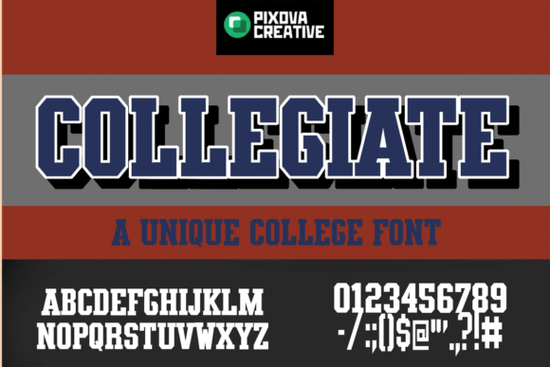
The Collegiate font is a versatile and elegant typeface that brings a touch of academic tradition to any design project. Whether you're creating a logo, a school brochure, or a custom print, this font offers a refined look that feels both timeless and modern. Its clean lines and balanced structure make it ideal for a variety of applications, from formal documents to creative branding materials.
Designed with care, the Collegiate font blends classic typography with contemporary sensibilities. It’s especially well-suited for projects that require a professional yet approachable feel. For designers looking to add a scholarly tone to their work, this font provides an excellent foundation. If you’re searching for a serif font that exudes confidence and sophistication, the Collegiate font is definitely worth considering.
One of the standout features of the Collegiate font is its readability. Even at smaller sizes, the characters remain clear and easy to read, making it a great choice for body text or headings. The font also includes a range of stylistic alternatives, allowing for greater customization in different design contexts. This flexibility ensures that the font can adapt to various creative needs without losing its unique character.
Why Choose the Collegiate Font?
The Collegiate font stands out for its ability to convey a sense of authority and tradition. It’s often used in educational institutions, but its appeal extends far beyond that. Small businesses, independent designers, and print-on-demand sellers can all benefit from its polished appearance. The font’s versatility makes it a valuable addition to any digital toolkit.
If you’re working on a project that requires a strong visual identity, the Collegiate font can help you achieve that goal. Its structured yet elegant design makes it suitable for everything from website headers to marketing collateral. Whether you're designing for a university or a local business, this font offers a professional edge that can set your work apart.
When selecting a font, it’s important to consider how it will be used. The Collegiate font works well in both digital and print formats, making it a practical choice for many projects. Its consistent performance across different mediums ensures that your designs will look sharp and professional no matter where they appear.
Another advantage of the Collegiate font is its ease of use. Most design software supports this typeface, and it’s typically available in multiple weights and styles. This means you can easily adjust the font to suit different parts of your design, from headlines to body text.
If you're new to using serif fonts, the Collegiate font is a great starting point. It’s not too ornate, which makes it easier to work with, but it still has enough character to make a statement. For those who want to add a touch of class to their work, this font is an excellent choice.
Whether you're a designer, a small business owner, or a creative hobbyist, the Collegiate font offers a reliable and stylish solution for your typography needs. Its combination of tradition and modernity makes it a valuable asset in any design project.